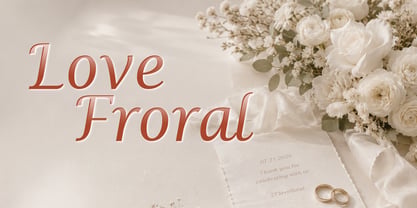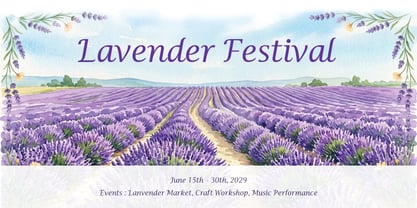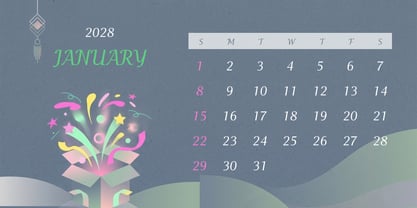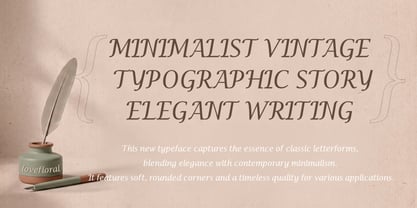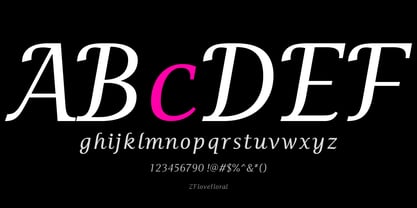
ZFlovefloral
von ZooFont
Die Schriftfamilie ZFlovefloral wurde von joo-hong Kim entworfen und von ZooFont veröffentlicht. ZFlovefloral enthält 1 Stile. Mehr über diese Familie
Where timeless elegance meets contemporary refinement.
This italic serif typeface blends classic sophistication with modern simplicity. Graceful curves, balanced stroke contrast, and refined proportions deliver exceptional readability across mobile devices, desktop screens, and print.
Designed for branding, invitations, editorial layouts, weddings, and premium packaging, it brings a romantic yet understated character to every project, adding an enduring sense of elegance to your typography.